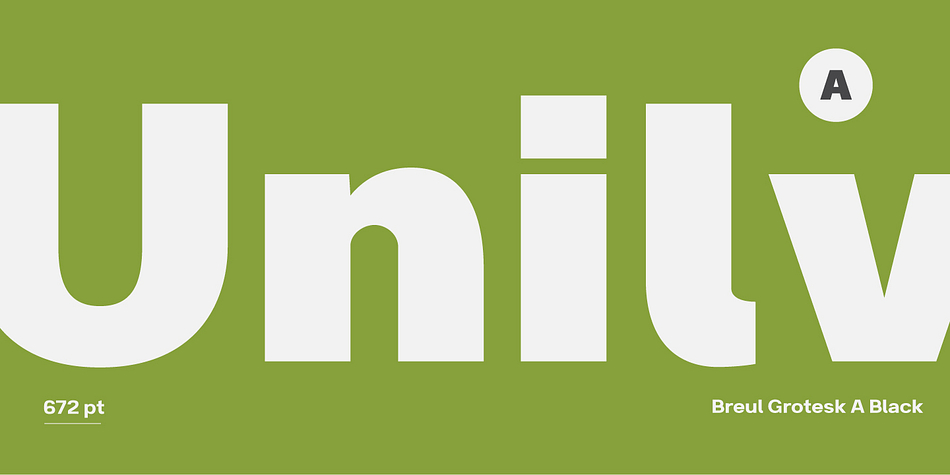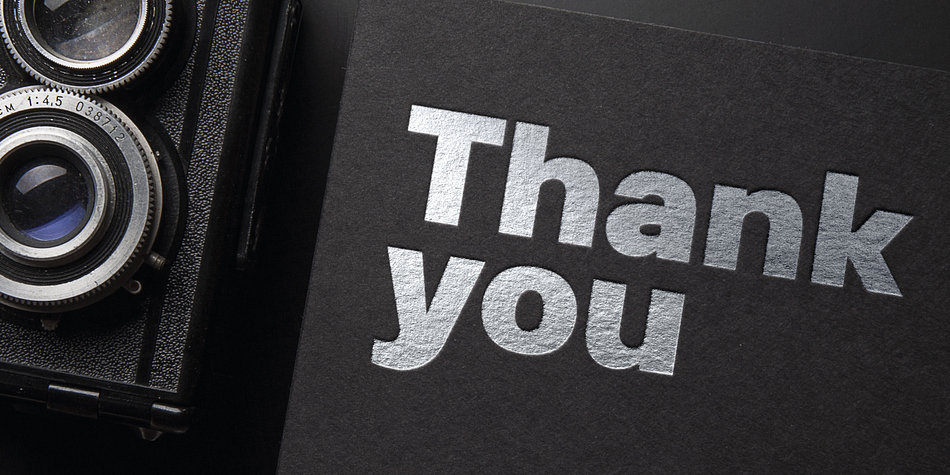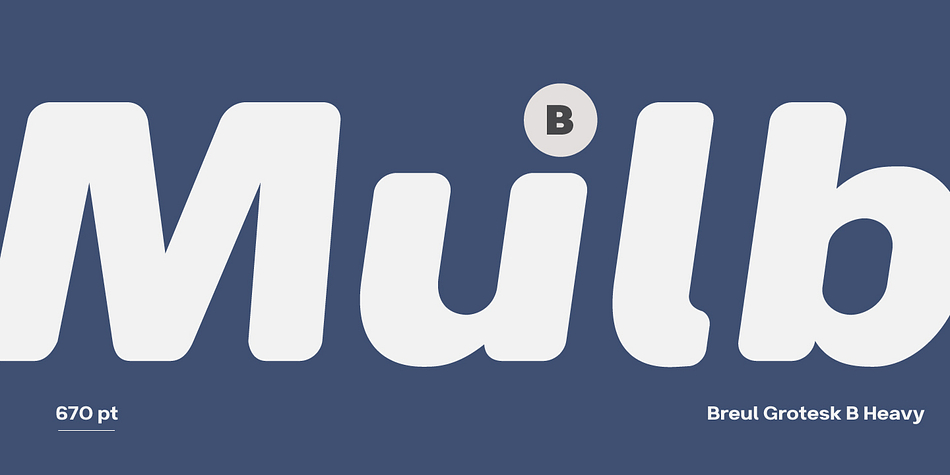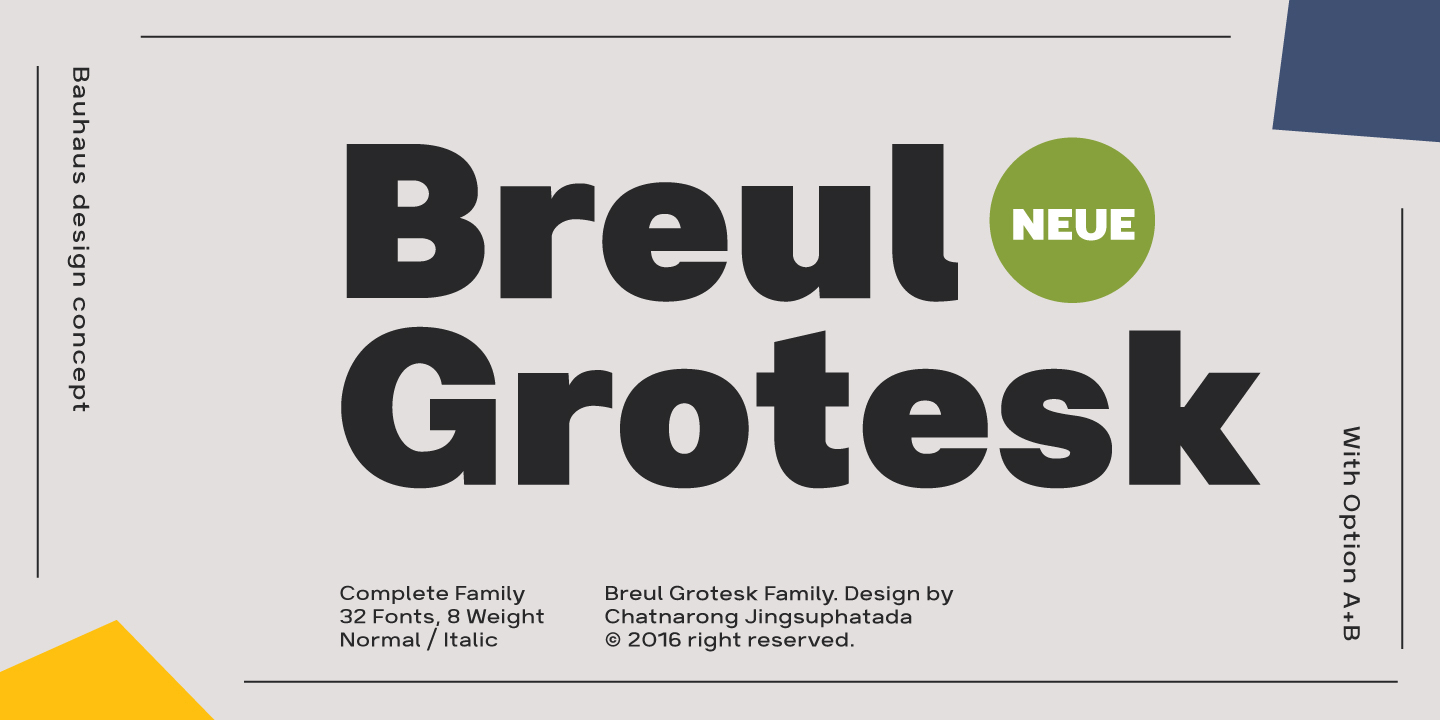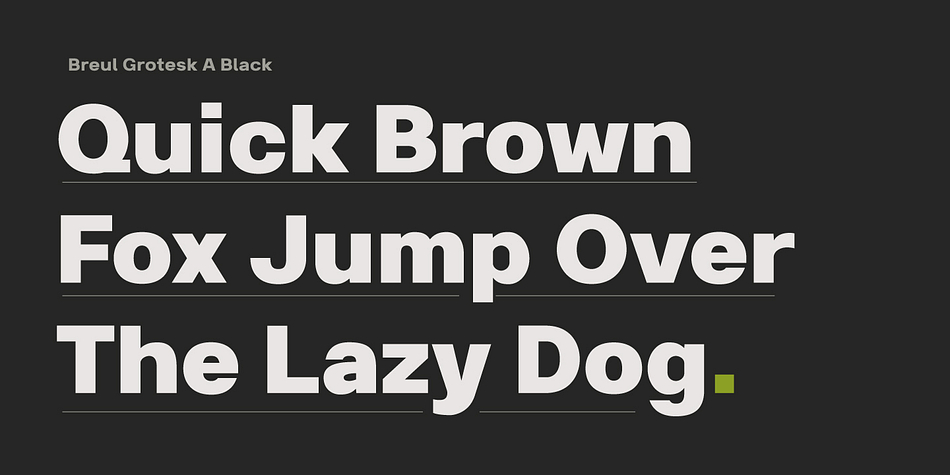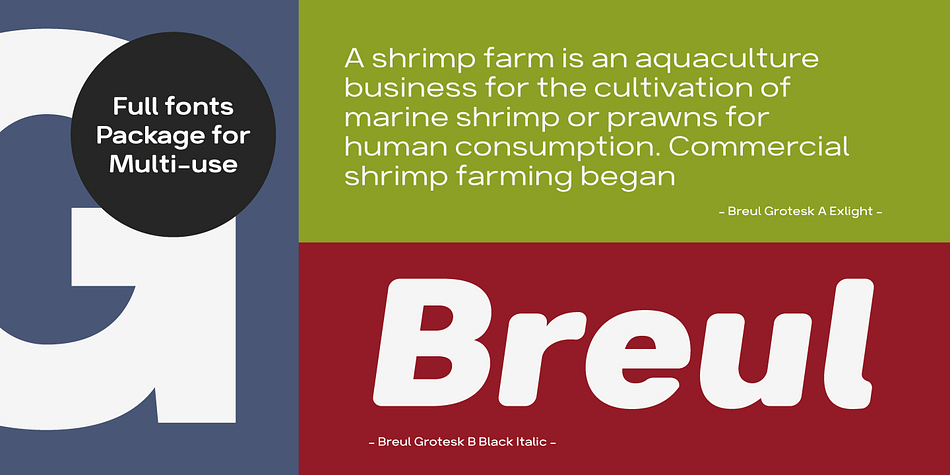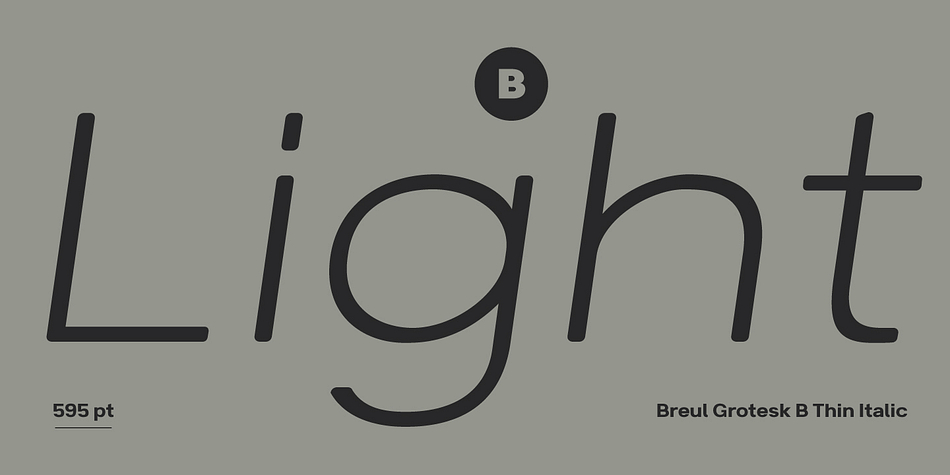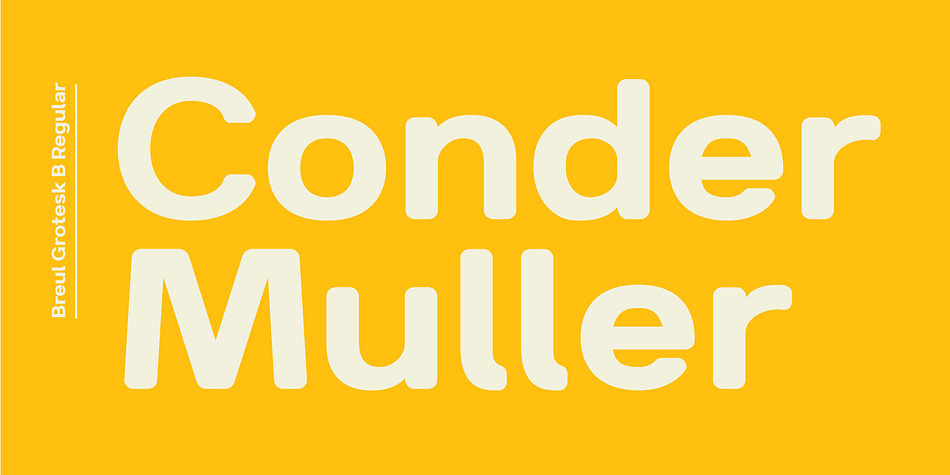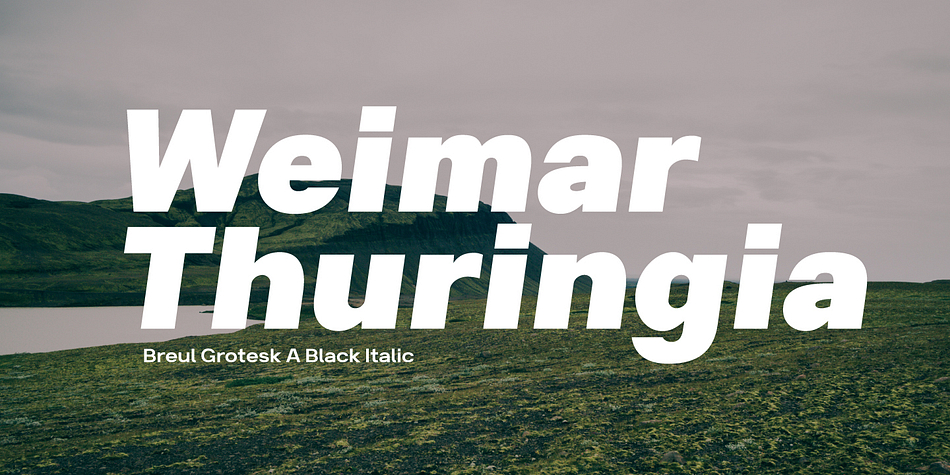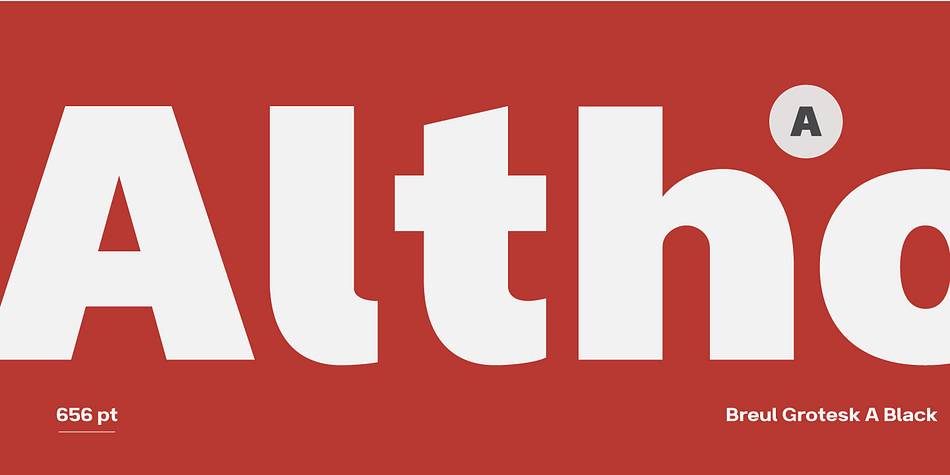
Breul Grotesk is a sans serif font family. This typeface has thirty-two styles and was published by Typesketchbook.
Taking inspiration from an attempt to marry art with industry of Bauhaus (1919), Brueul Grotesk is classic and straightforward, cutting back superfluous elements. A sans serif type, it’s like a design from the Machine Age. It comes in A and B sets to offer end variations-choose the bulbous terminals set if you need a less stern impression. It then is suitable for diverse demands.
Brueul Grotesk has A and B sets with 16 styles each, giving you an all-purpose usage.